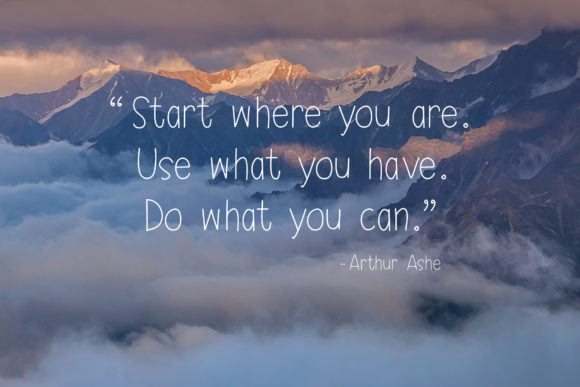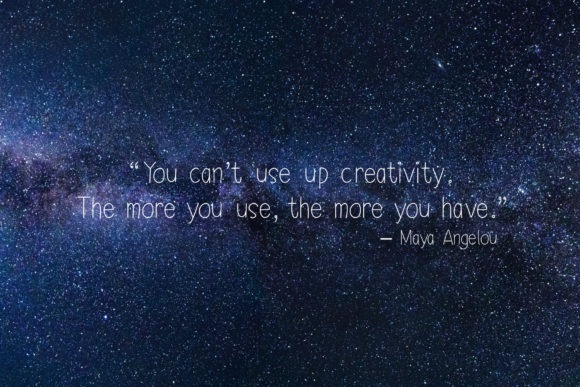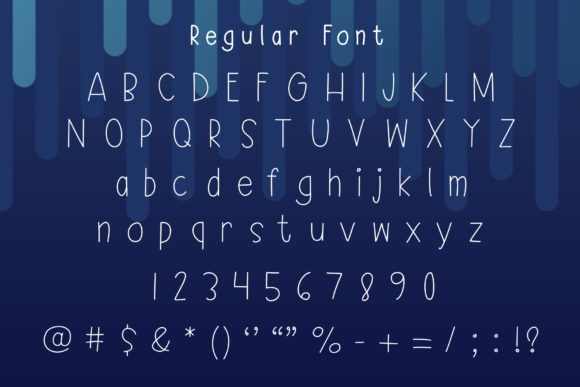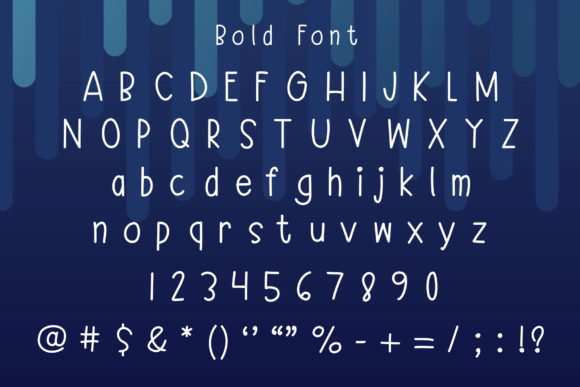
The Perfect Partner for Your Next Creative Project
Have you ever been brainstorming a new design project and suddenly, the perfect font pops into your mind? For designers, this moment is pure magic. It’s the spark that sets your imagination ablaze and drives you to create something truly special.
This is exactly what happens when you discover the Jester Font. This sweet and friendly handwritten font is the perfect addition to any design project. With its natural and unique style, Jester Font is incredibly versatile and can be used for a wide range of designs, from invitations to logos and more. Whether you’re a seasoned designer or just starting out, Jester Font is an invaluable tool that will help bring your creative vision to life.
With Jester Font, the only limit is your imagination. Its endless possibilities make it a valuable asset for designers of all levels. So why settle for a generic font when you can add a touch of personality to your designs with Jester Font?
Jester Font Key Features
- Font Family: Jester Font is a unique, hand-drawn sans-serif font that comes in 6 different styles: Regular, Italic, Bold, Bold Italic, Shadow, and Outline.
- Character Set: Supports a wide range of languages, including Latin, Cyrillic, and Greek alphabets, with over 800 glyphs.
- Unique Characteristics: Jester Font features a playful, whimsical feel, with subtle irregularities and imperfections that give it a hand-drawn look.
Jester Font Review
As a designer, I’ve had the chance to work with a wide variety of fonts, and I must say that the Jester Font is quite unique. ✨ The font’s playful and whimsical nature makes it perfect for projects that require a touch of humor and personality.
- Customizable: The Jester Font offers a wide range of customization options, from font sizes to colors, allowing designers to tailor the font to their specific needs.
- High-quality glyphs: The font’s glyphs are well-designed and crisp, making it suitable for both digital and print applications.
- Unique style: The Jester Font’s style is unlike anything else I’ve seen, making it a great choice for designers looking to add some visual interest to their projects.
However, there are some limitations to consider: ⚠️ The font may not be suitable for formal or professional applications, as its playful nature may come across as unprofessional. Additionally, some users may find the font’s customizability overwhelming, leading to inconsistent branding.
Overall, I think the Jester Font is a great addition to any designer’s toolkit. While it may not be suitable for every project, its unique style and high-quality glyphs make it a great choice for designers looking to add some personality to their work.
Tips for Getting the Most Out of Jester Font
Use Jester Font in bold or italic styles to add emphasis to your text.
Combine Jester Font with other fonts to create a unique and playful visual effect.
Use Jester Font in creative and unconventional ways, such as in a logo or icon.
Jester Font is perfect for:
Playful and whimsical designs.
Children’s book illustrations.
Advertising and marketing materials.
Alternatives to Jester Font for Designers
Pacifico is a beautiful, elegant script font that is perfect for creating a sophisticated and luxurious feel in your designs. It is ideal for use in headings, titles, and quotes. Pacifico is a more refined and polished alternative to Jester Font, making it suitable for high-end branding, packaging, and advertising materials.